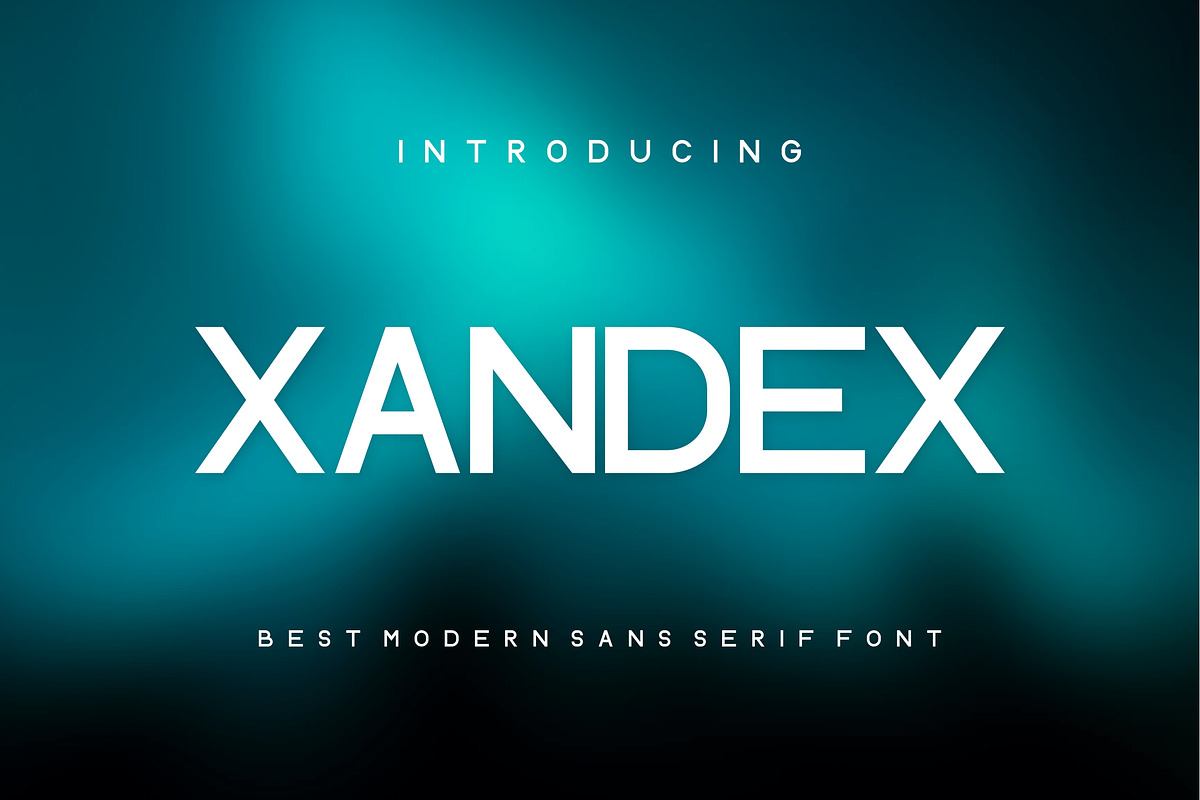
Xandex Modern Sans Serif Font Free Download
Please note, to use this font for commercial purposes, you must purchase the full version. Xandex is a contemporary and clean sans-serif font designed to bring a modern touch to any design. With its sharp lines and geometric structure, this font is perfect for logos, branding, websites, and editorial projects. Whether you're working on a corporate identity, a creative campaign, or a stylish promotional material, Xandex offers versatility and clarity. Test it out and enjoy free download access for personal use. Experience the cutting-edge style of Xandex Modern Sans Serif Font Free Download before purchasing the commercial license. Elevate your designs with the bold, modern feel of Xandex.